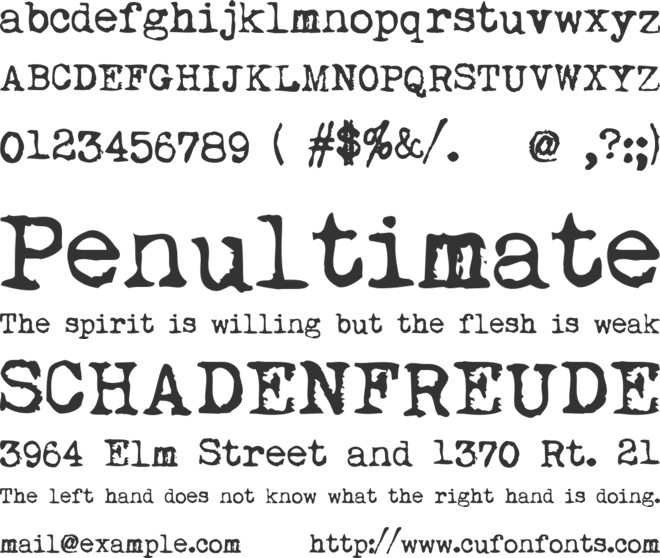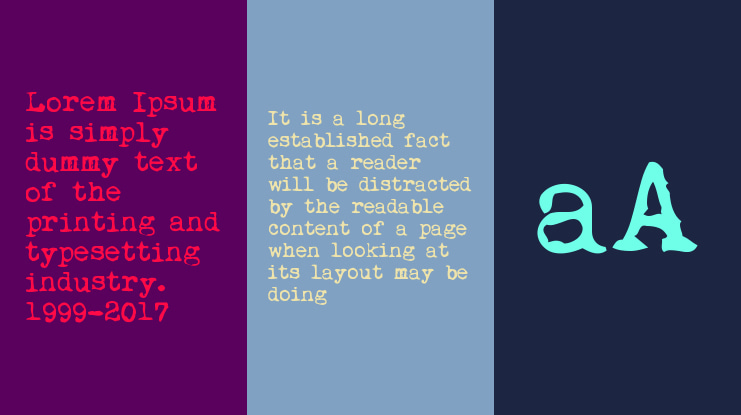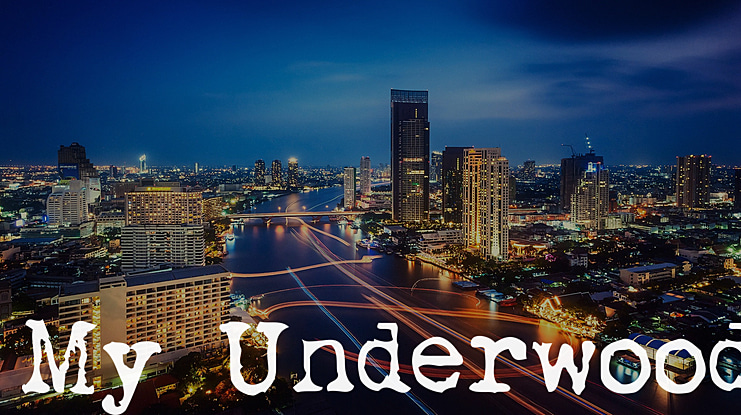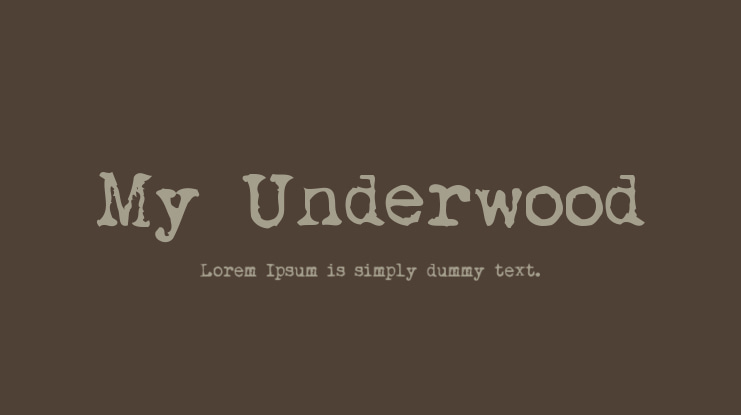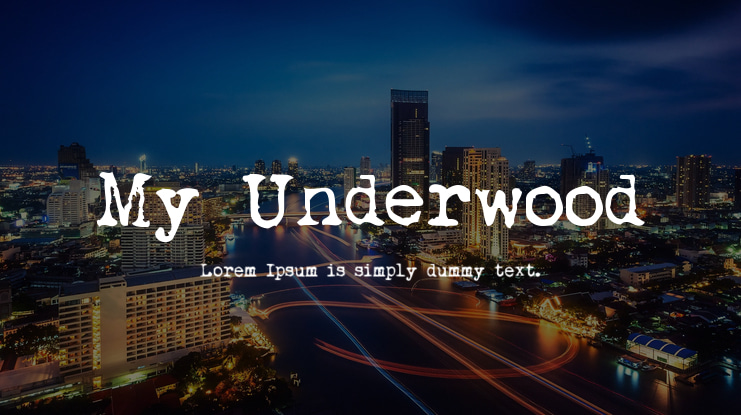
My Underwood Font
A typeface of my vintage Underwood portable typewriter. Only contains characters that exist on the real typewriter. Oh, and it needed to be cleaned BAD.